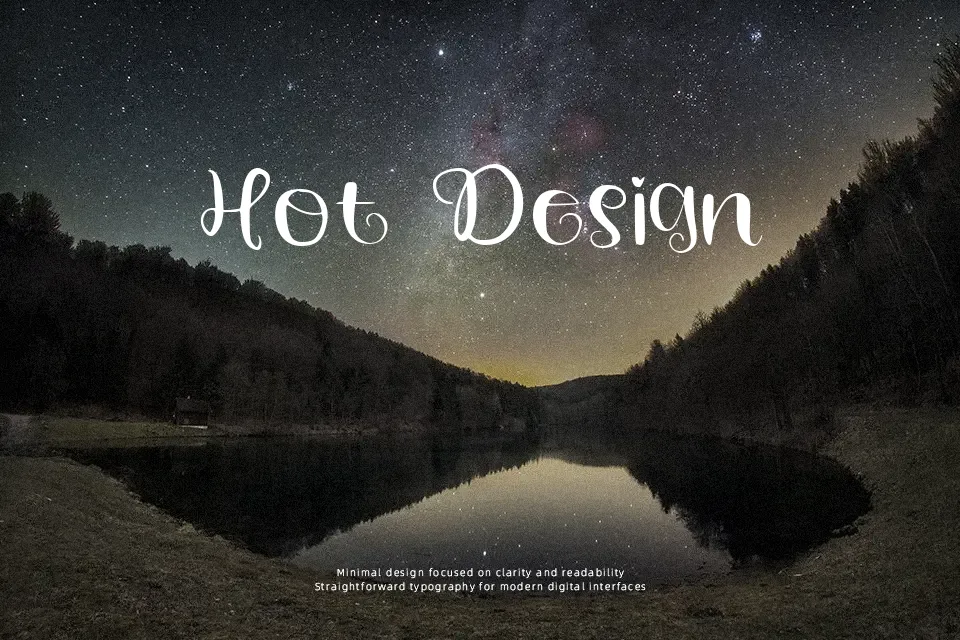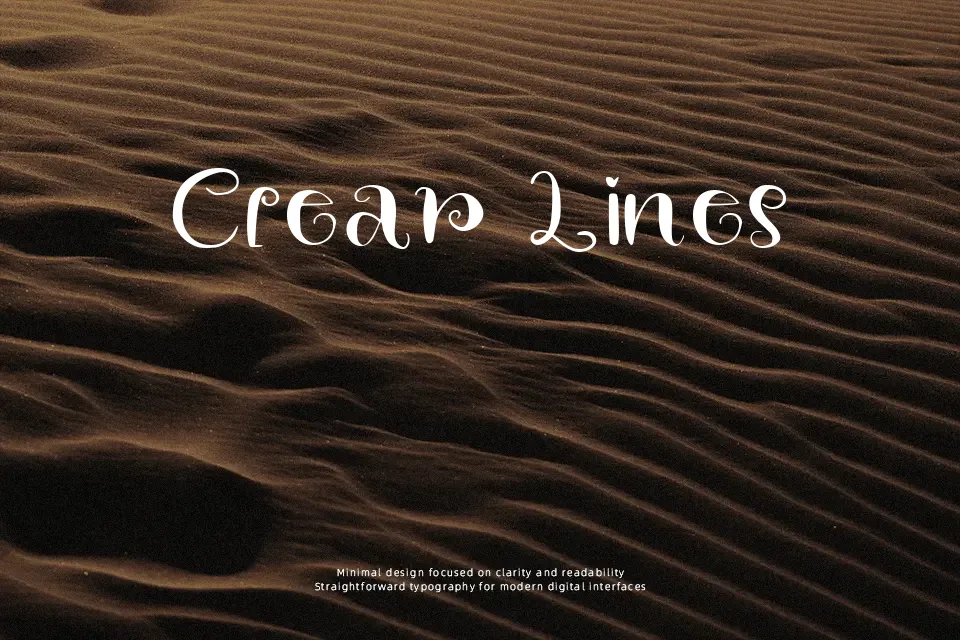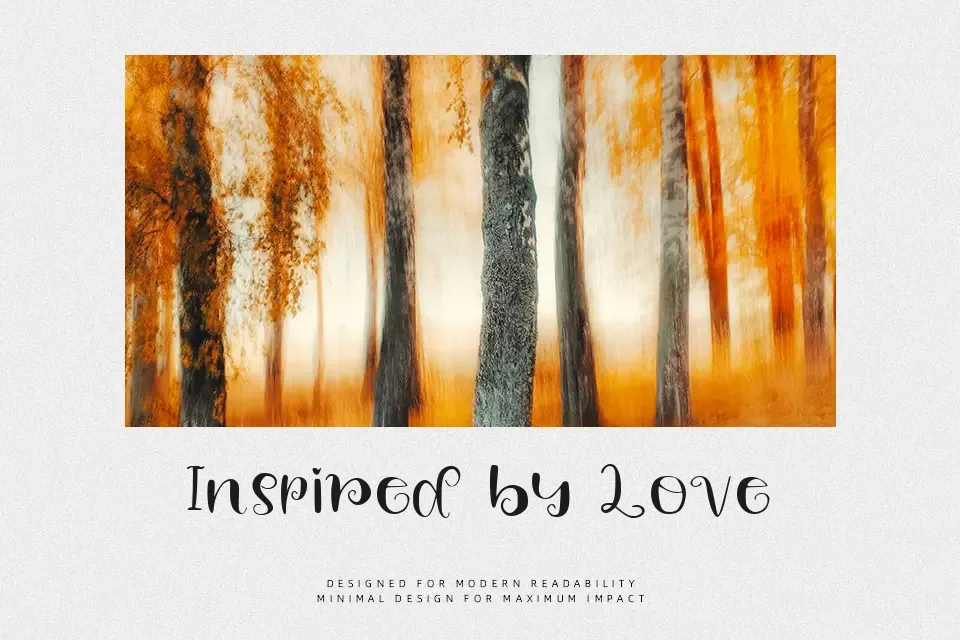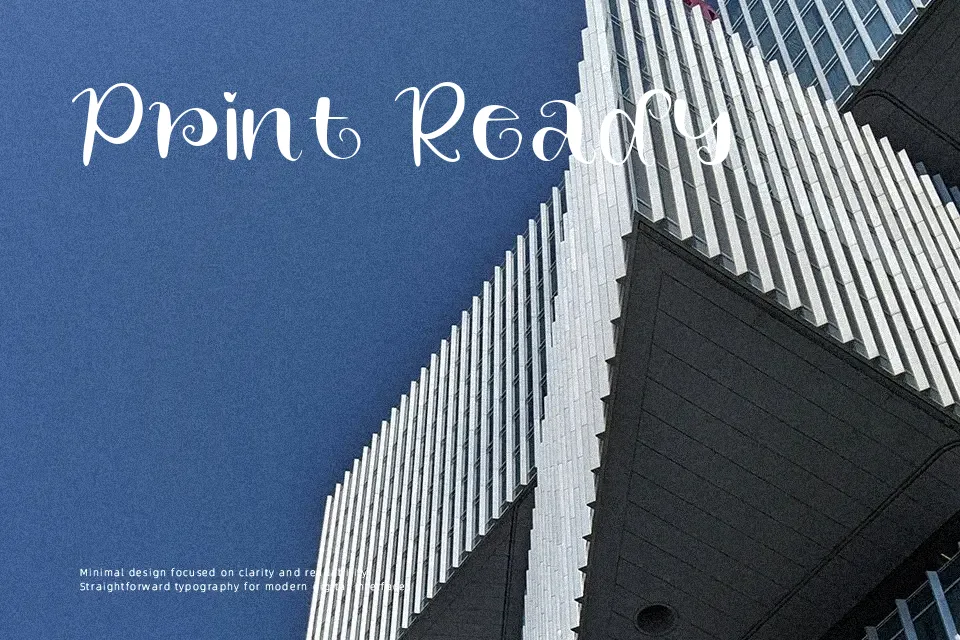
Christmas Wish Font
Featuring whimsical curls, sweeping swashes, and rounded terminals, Christmas Wish Font brings an expressive decorative script aesthetic to festive typographic projects. The letterforms display moderate stroke contrast with generous horizontal spacing, allowing the spiraled accents and fluid joins to stand out distinctly. The typeface excels in large display environments such as holiday greeting cards, seasonal product packaging, and celebratory event posters. The prominent ornamental loops provide immediate festive character in large headline treatments, though they compromise readability when set at smaller sizes. Dense body text and multi-line editorial paragraphs quickly appear cluttered under these elaborate flourishes.